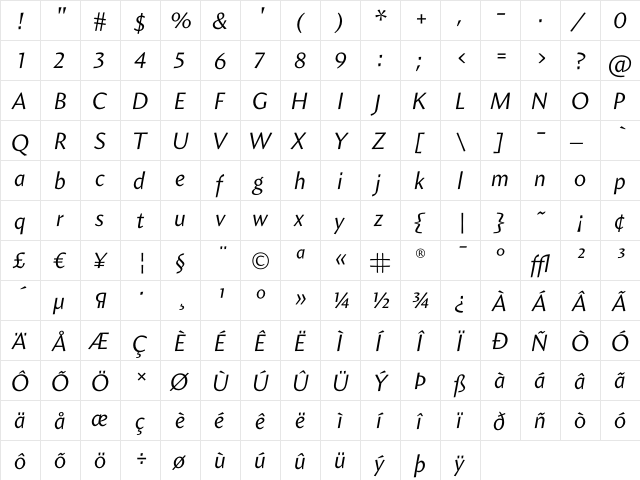
Amira Roman Italic
Design Context for Amira Typeface
Amira is a composed and adaptable typeface that performs quietly and consistently across a wide range of design contexts. The dynamic lean of this cut emphasises speed and emphasis in any layout.
Pro Tip: Use Amira for emphasis, pull quotes, and subheadings where its slanted energy can add rhythm to the layout.